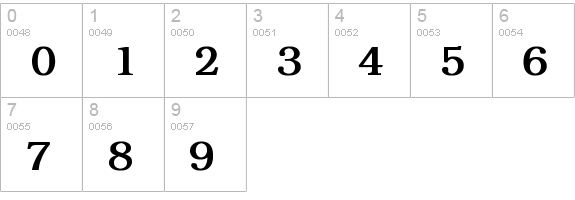
Bookman Bold Font Details
Bookman Bold is a strong, high-contrast variant in the Bookman typeface family \xE2\x80\x94 well suited to headlines, attention-grabbing titles, and strong calls-to-action.
Bookman Bold font is a timeless and classic typeface that exudes elegance and sophistication. Its strong and sturdy letterforms make it perfect for conveying a sense of authority and confidence in your design projects. With its bold weight, Bookman Bold commands attention and is ideal for headlines, titles, and branding materials. The versatility of Bookman Bold font allows it to be used across a wide range of design applications, from print materials to digital platforms. Whether you are working on a poster, logo, website, or any other creative project, Bookman Bold will make a bold statement and leave a lasting impression. Best of all, Bookman Bold font is available for free download at FontsMarket.com. This means you can easily access this high-quality typeface without any cost, making it a valuable addition to your font library. Don't miss out on the opportunity to enhance your designs with the timeless appeal of Bookman Bold font.